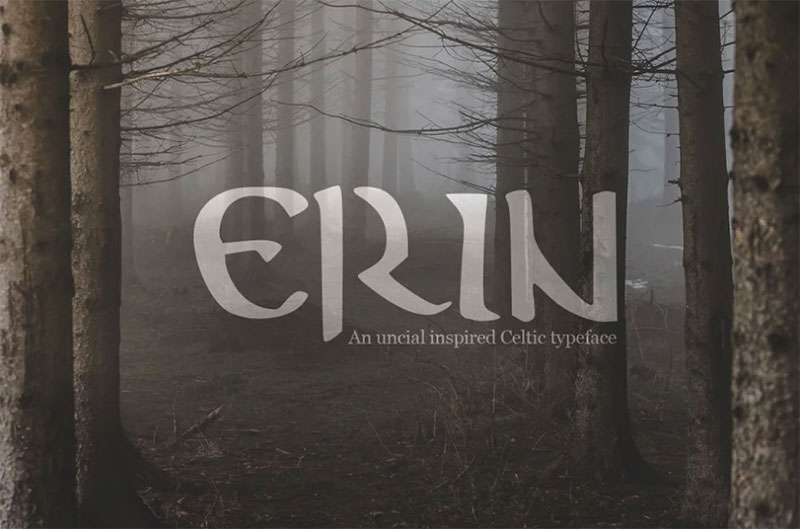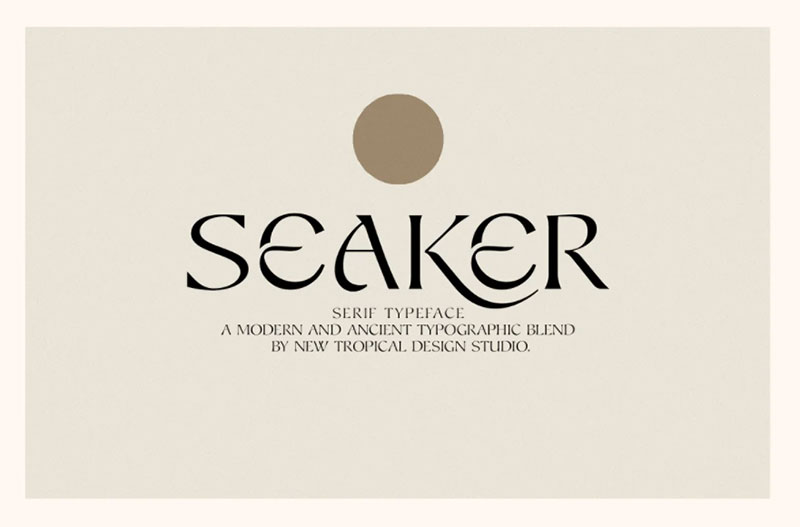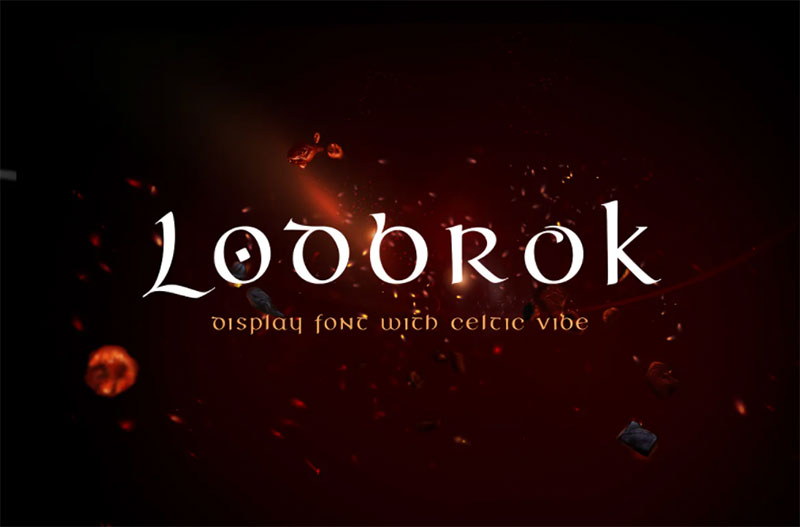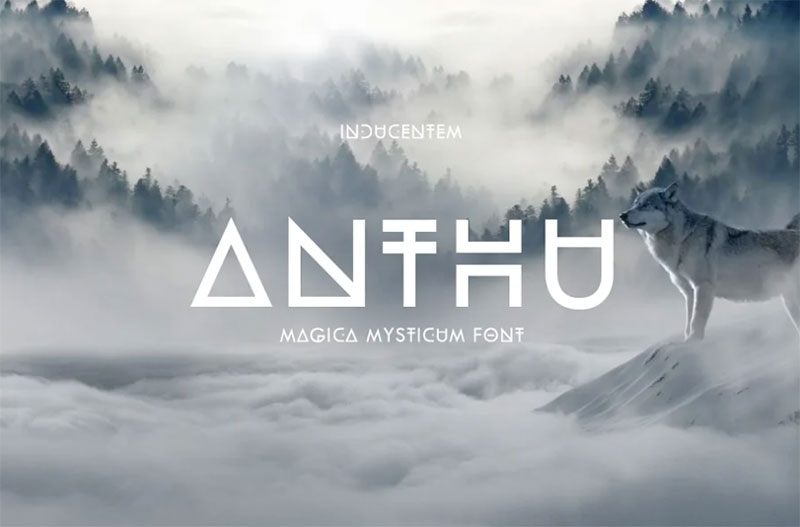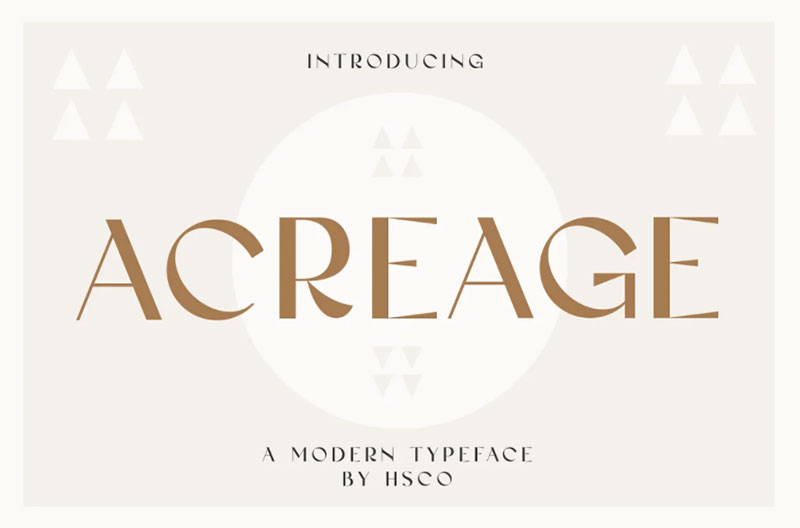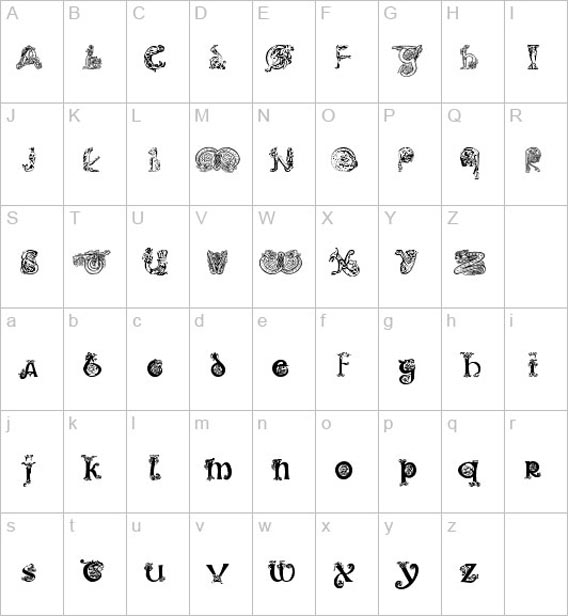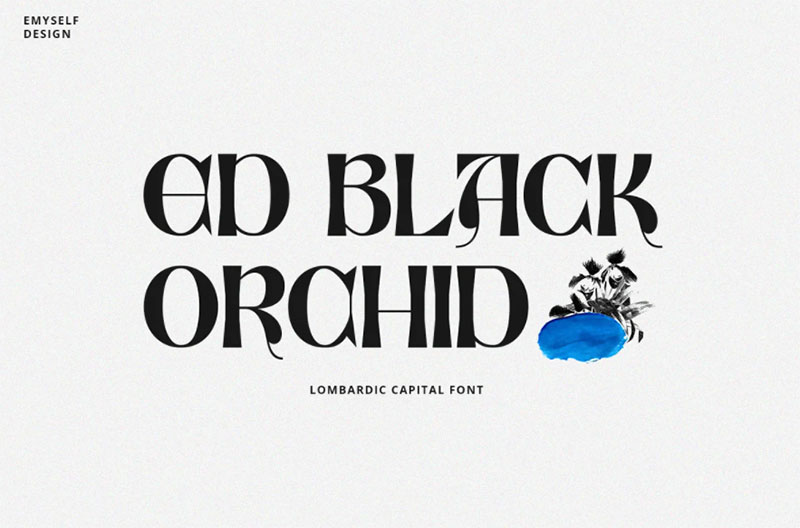
Celtic fonts are pretty awesome especially if you have a project on this theme.
And it is likely to appear something like this on the horizon considering that a lot of movies from the Celtic period are made.
In this way comes the demand for Celtic typography on opening credits as well as posters or other art for promoting the movies.
Erin
Erin is a Celtic-inspired, uncial typeface that comes in two variants; medium and aged. Perfect for adding an air of mysticism and a legendary feel to posters, packaging, branding…and pretty much anything else you can think of.
The font has a humanist feel, with some minor irregularities in the baseline to emphasize the hand-crafted appeal. The Aged version has been peppered with pits and scratches, providing a battle-worn and weathered look. Think Celtic, Viking, Fantasy, and Medieval….think Erin.
Paul’s Celtic Font 3
Seaker
Seaker blends modern and ancient typography to create a sense of nostalgic wanderlust.
This spiritual serif comes with 2 uppercases to mix and match letters. Subtle irregularities have been added to the letters to give an aged/handmade aesthetic.
Seven Swordsmen BB
Lodbrok
Calligraphic font inspired by uncial and gothic cursive scripts. Readable yet very Celtic, medieval, Viking kind of look.
Good for beer, whiskey, Scotland / Ireland / Norway / Sweden related products, as well as magic or gaming niches. Basic Latin and Scandinavian character sets are supported.
Celtic Eels
Anthu
Anthu is a mystical font with a unique and modern geometric style. It is suitable for logos, quotes, social media posts, film titles, and stationary.
It works with different themes such as mystical, tribal, ethnic, magical, and fantasy.
Portcullion
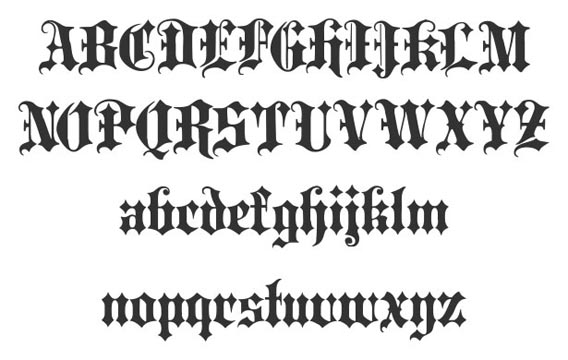
Acreage
Acreage is a stylish modern typeface with lots of character. Perfect for use in branding projects that are looking to add a little bit of modern elegance.
Acreage comes equipped with 3 ampersands, a unique & attractive character set & Western European language support.
Paul’s Illuminated Celtic Font
ED Black Orchid
ED Black Orchid is a Lombardic font that consists of uppercase letters. This font is designed to be simpler, which was inspired by several social media posts and letter books.
There are two styles in this font, namely regular and outline to make it easier to use for work.
Celtic Garamond the 2nd
CelticSpiral font
СelticSpiral font is perfect for printing graphic arts, posters, packaging, and t-shirts. The font is presented in usual and color versions.
Only uppercase letters from A to Z and numbers set (36 characters)
Paul’s Celtic Font 2
Provan Formal
Provan is a contemporary humanist sans serif with roots in calligraphy and incised letters. These timeless inspirations result in a typeface family that transcends fashion and adds a strong sense of authenticity to brands.
The regular version of Provan has angled stem endings and oblique stress in curved shapes which add to its friendly and legible warmth. Provan Formal straightens these stroke endings to bring a more refined alignment of letters.
The typefaces include swash capitals, small capitals, old-style figures, and special Celtic capital variants. The Inline version of Provan is useful for drop capitals, book covers, and posters.
Provan bucks the ubiquitous neutrality of geometric typefaces and exudes a sense of humanity, craftsmanship, and warmth.
Stonecross
Paul’s Celtic Font 1
Stonehenge
AvQest
Thor’s Hammer
Eileen Caps
Gothic Leaf
Carolingia
Trueheart
Celtic MD
UnZialish
Ramsey SD
Viking
The Shire
Queen & Country
Dungeon
I crashed into gothic
Aon Cari Celtic
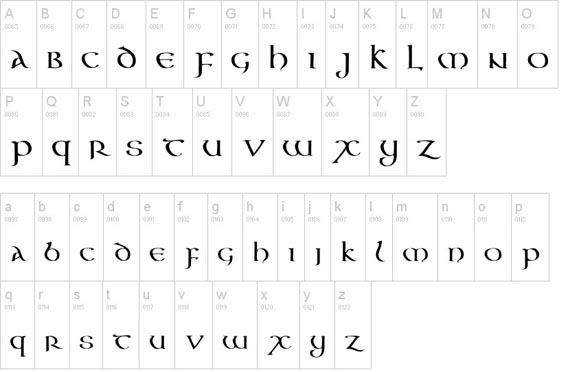
Gaeilge
Spiral Initials
Irish Unci Alphabet
Coptic Eyes Latin
Party Business
Erin Go Bragh
Lombardic
Roman Uncial Modern
Unicercle
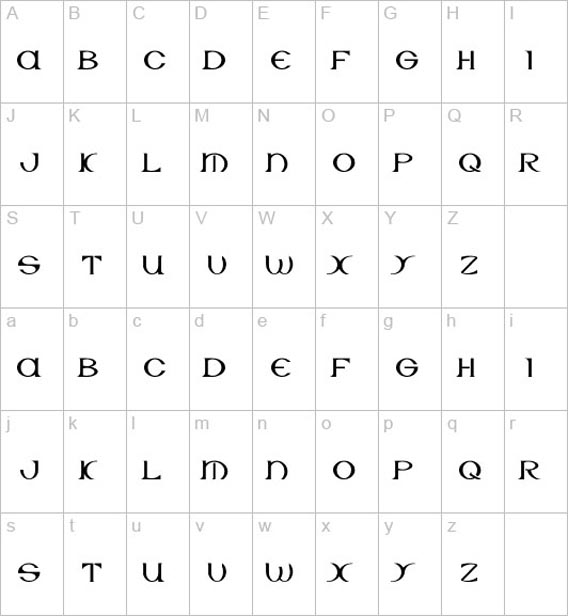
Dumbledor
CelticaBlack
Castiglione
Rebuscada Caps
Hours in the rain
Livingstone
UncialeOrnamentale
Celtic Garamond Pro
A classically proportioned text font – with a Celtic twist! Perfect for that oldstyle look, but still very readable.
I have cleaned up the outlines, improved the spacing and kerning, modified a few letterforms – and then expanded the character set by 440%!
A bolder weight has now also been created, and a rough version for a more antique look.